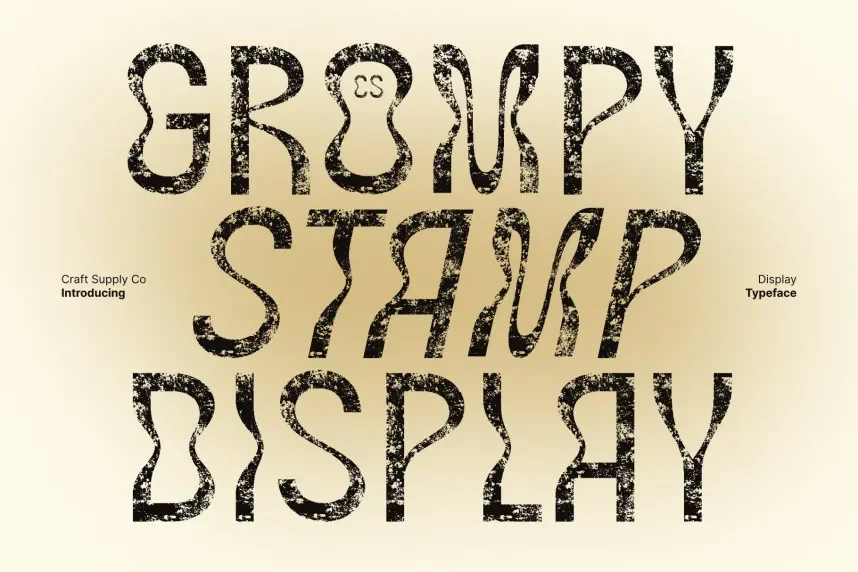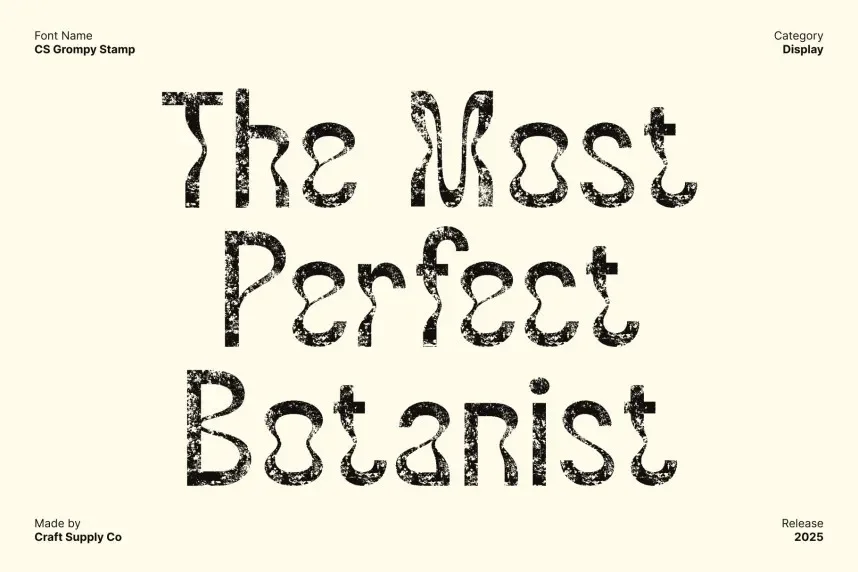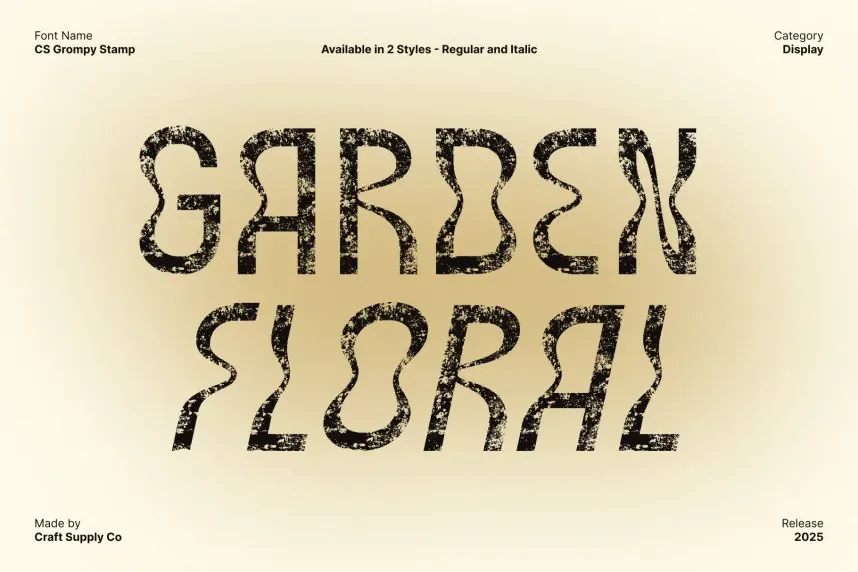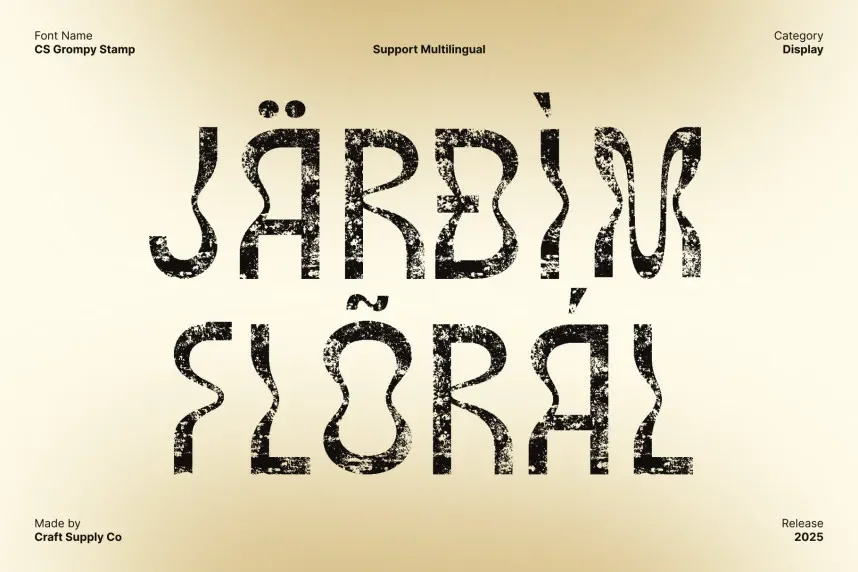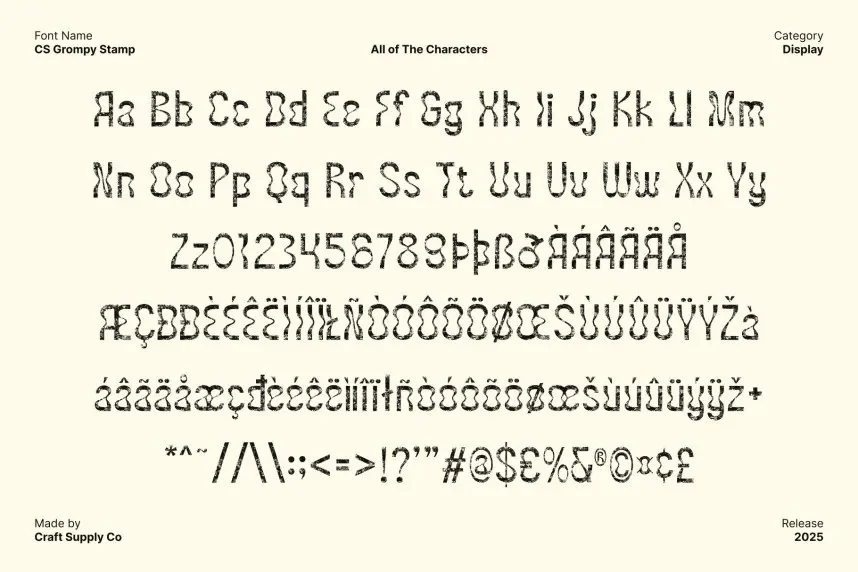
CS Grompy Stamp Font is a display font with a strong, stamped design that creates a rugged and bold visual. The uneven edges and blocky letterforms evoke a handcrafted, industrial feel, making it ideal for projects that need to stand out, such as posters, event branding, and product labels.
Best used in headlines, creative marketing materials, and logos, CS Grompy Stamp Font pairs well with simple sans-serifs for added contrast. Available in TTF and OTF formats, this font comes with a commercial-use license. Always confirm the licensing details for any commercial projects.